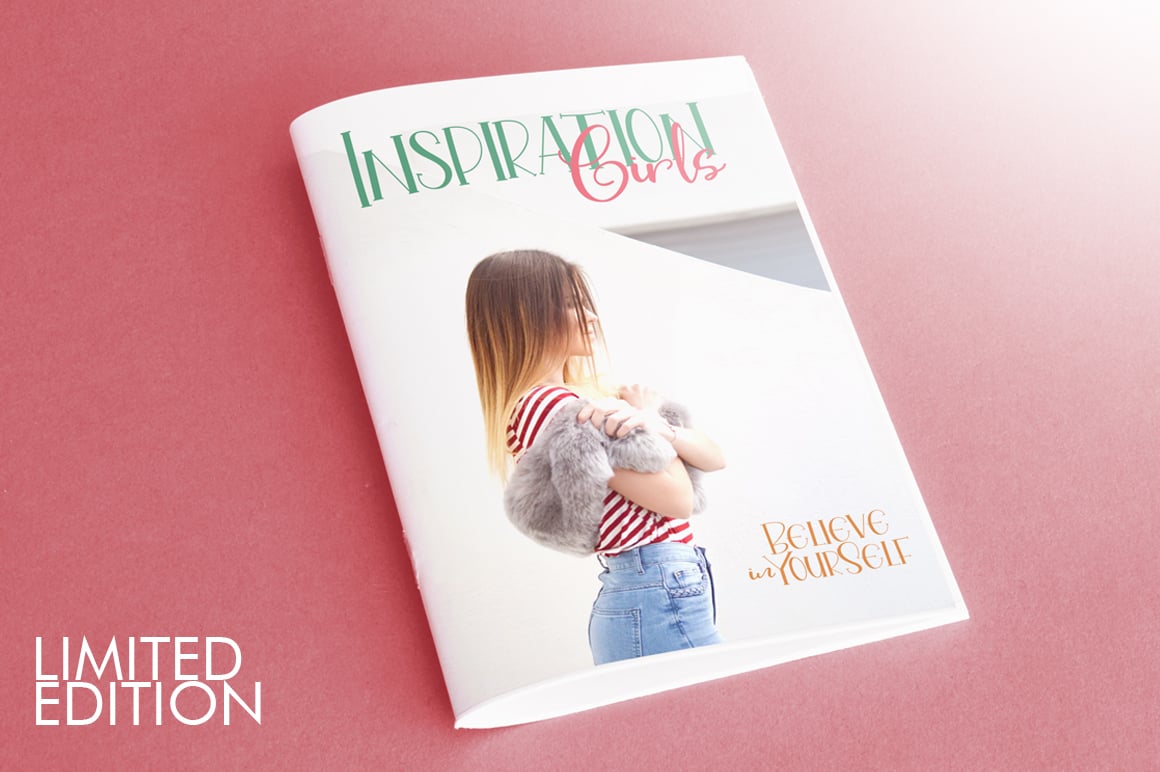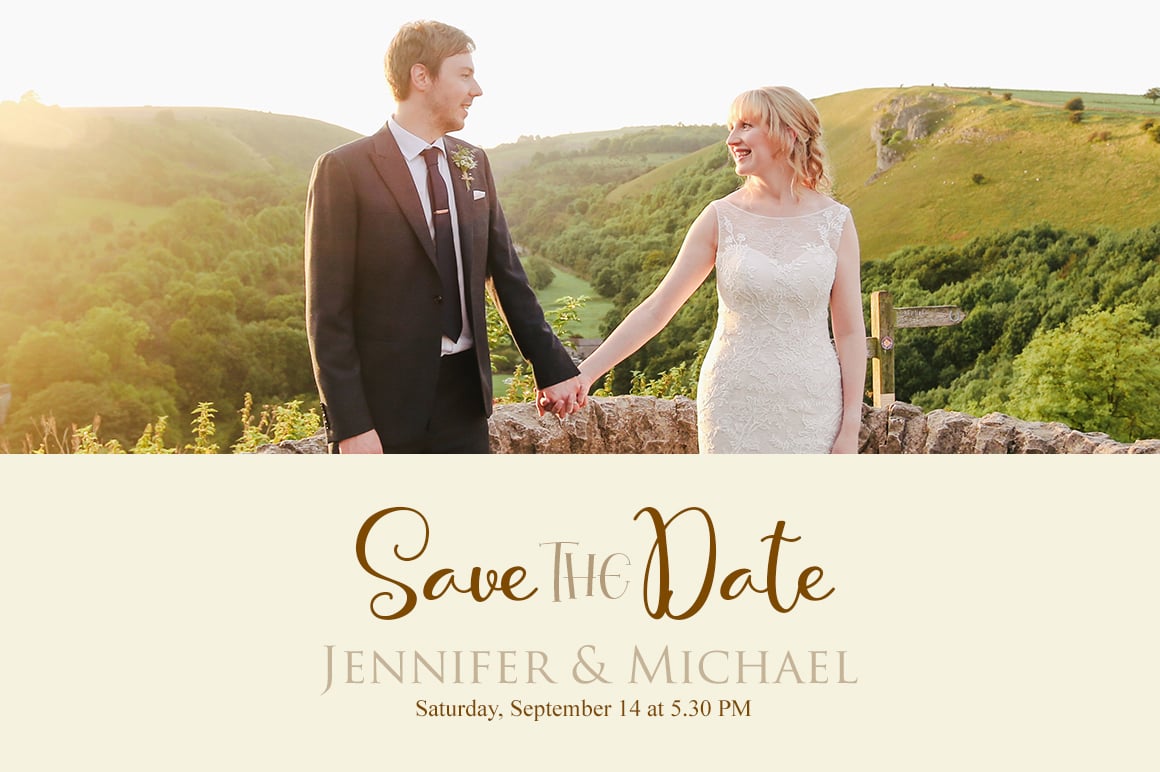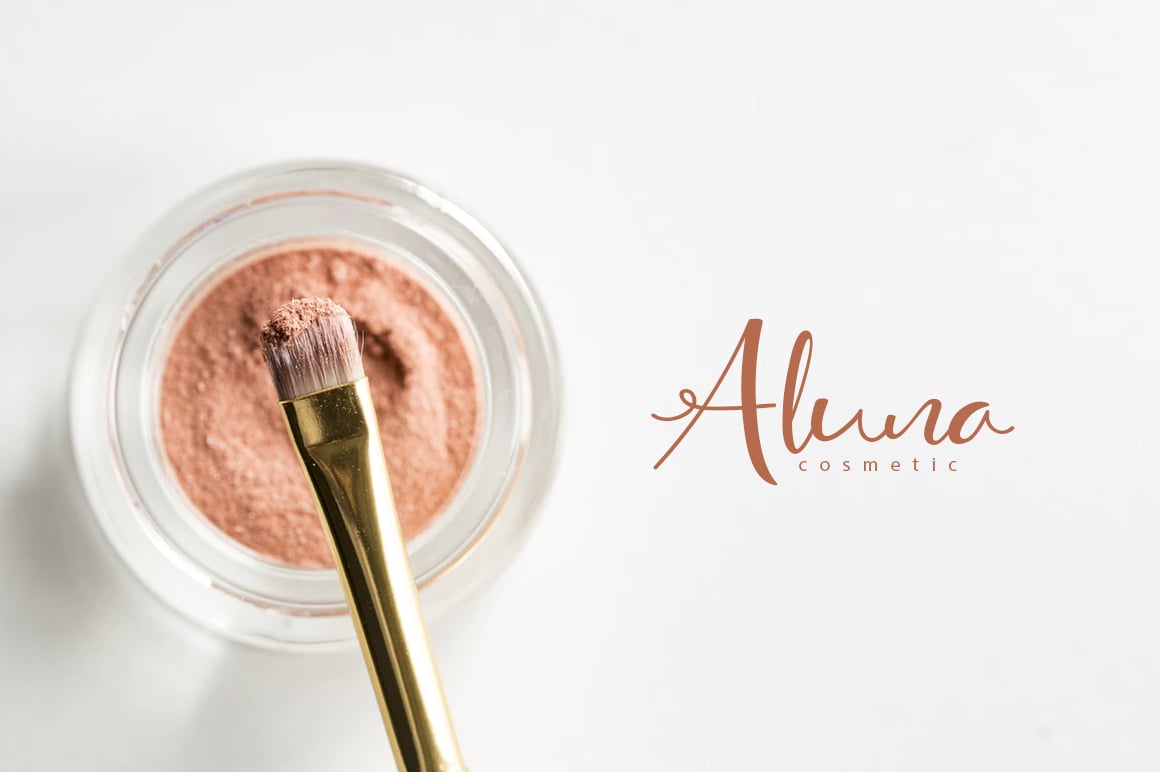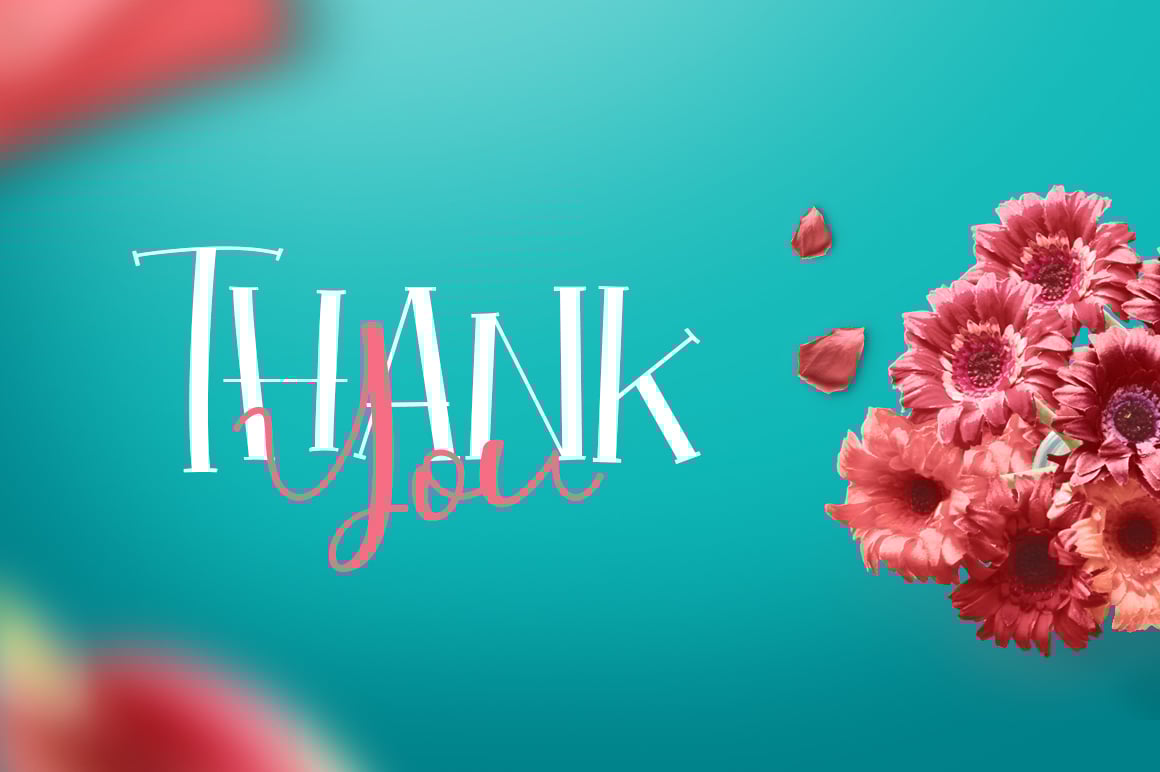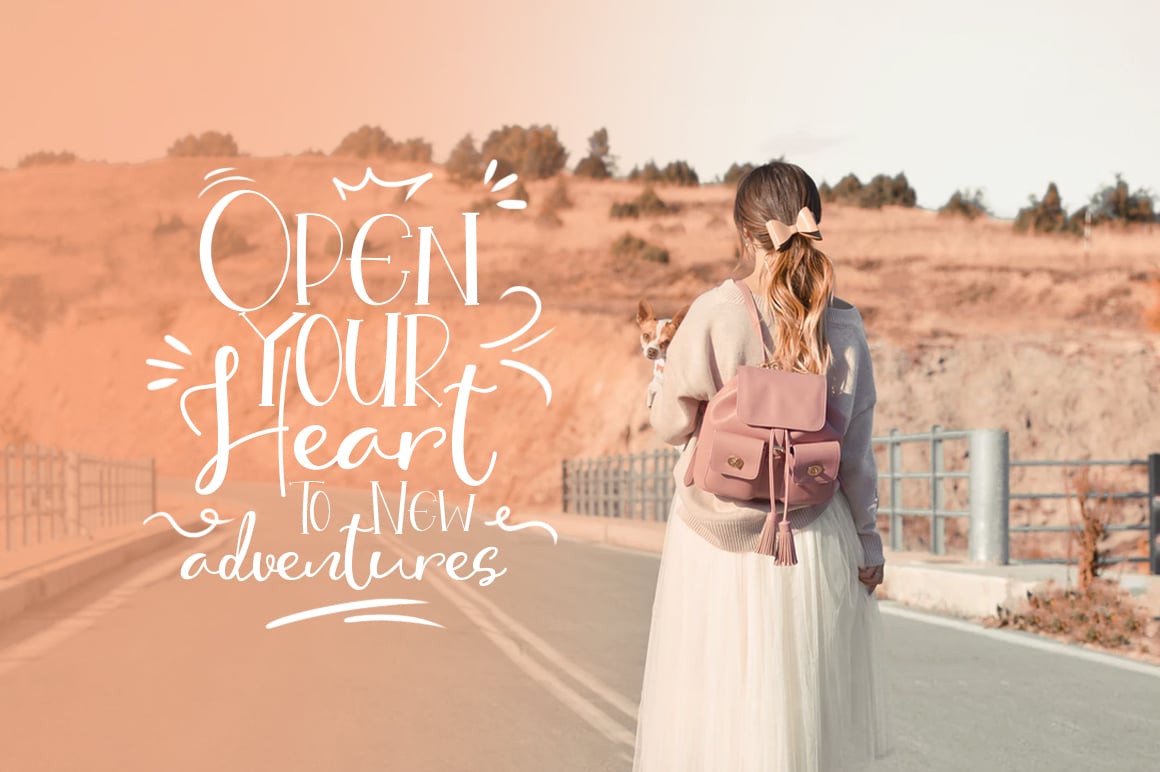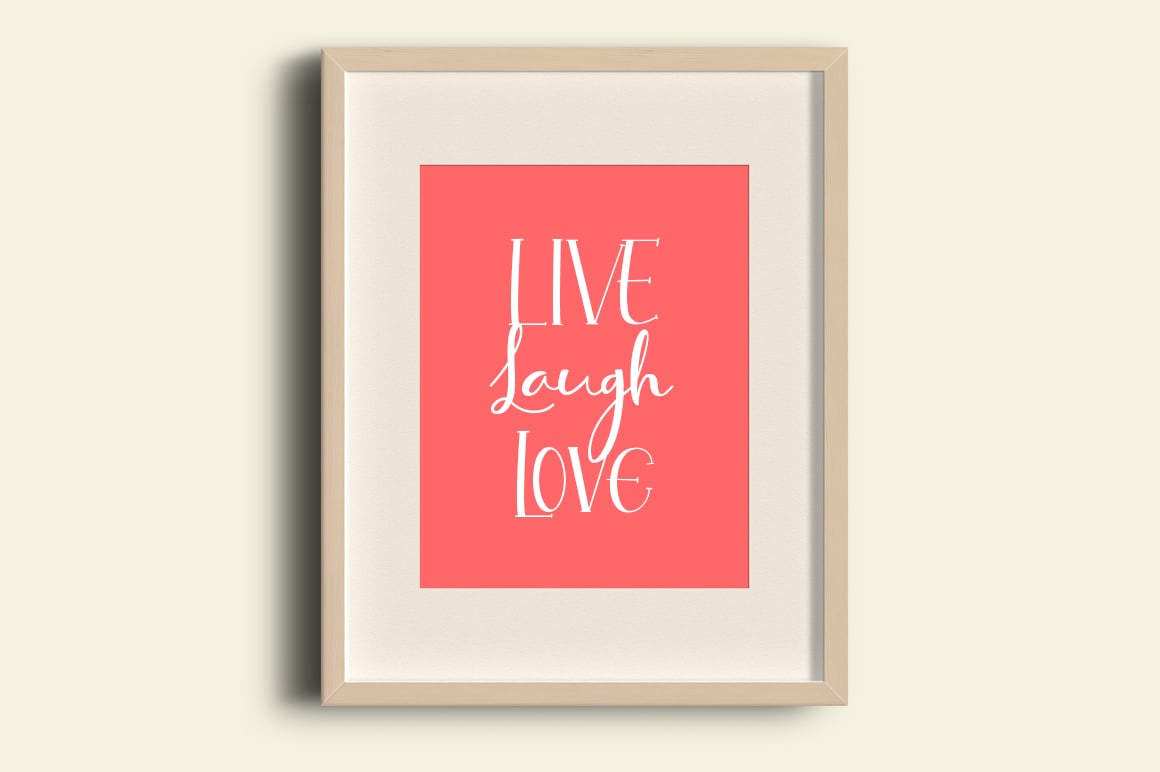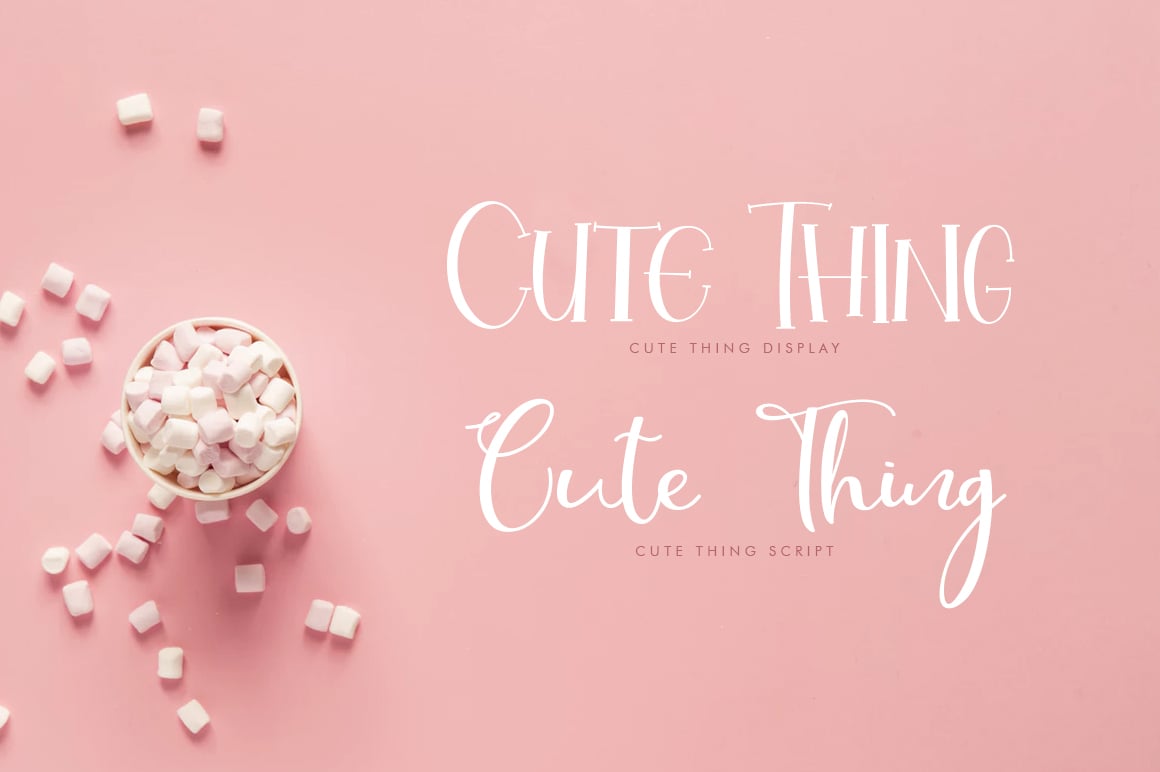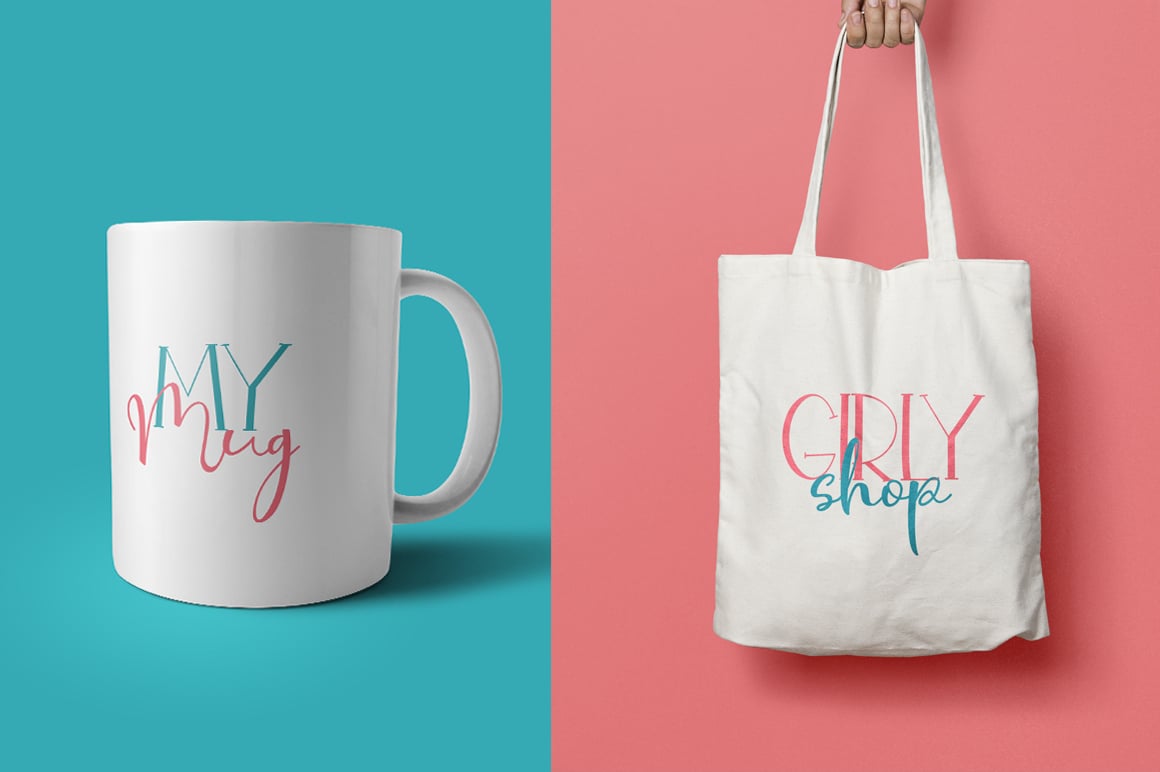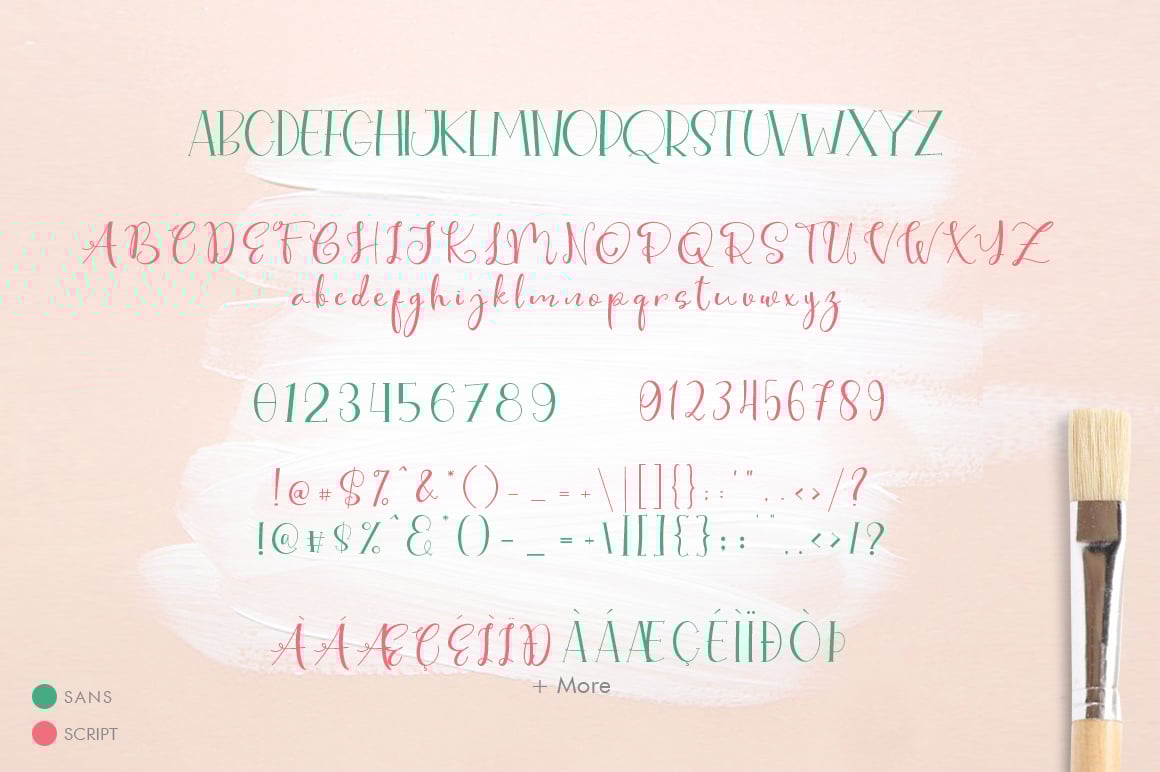
Cute Thing Font Duo
Introducing the Cute Thing Font Duo with two different style, handwriting script and sans nice font type. You can combine script and sans to get amazing results. Cute Thing it’s perfect for namecard, poster, logo, magazine, cover, banner, tshirt and headers, or even large-scale artwork..